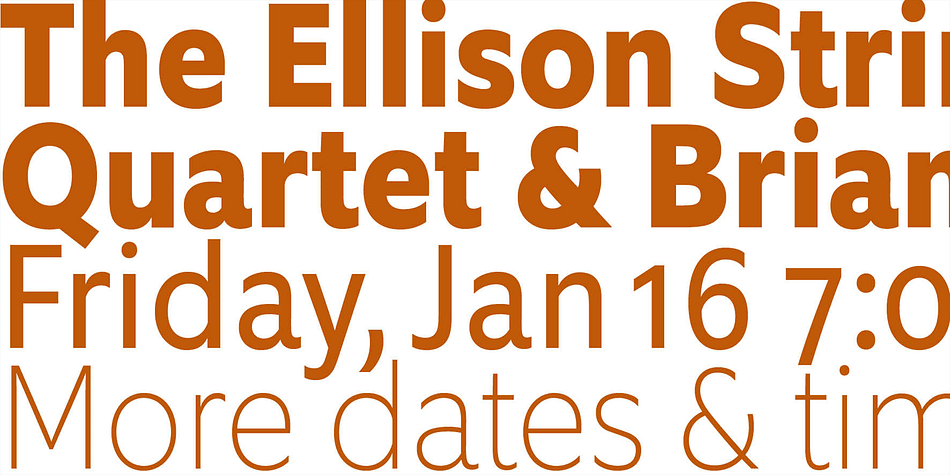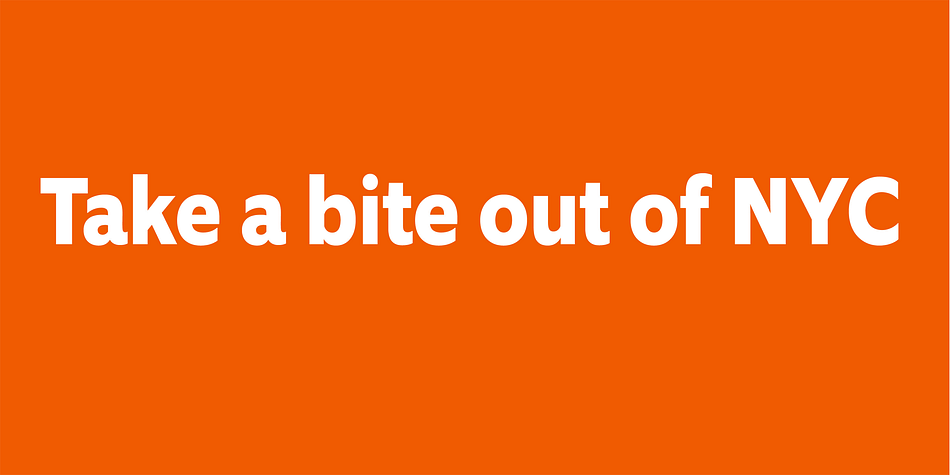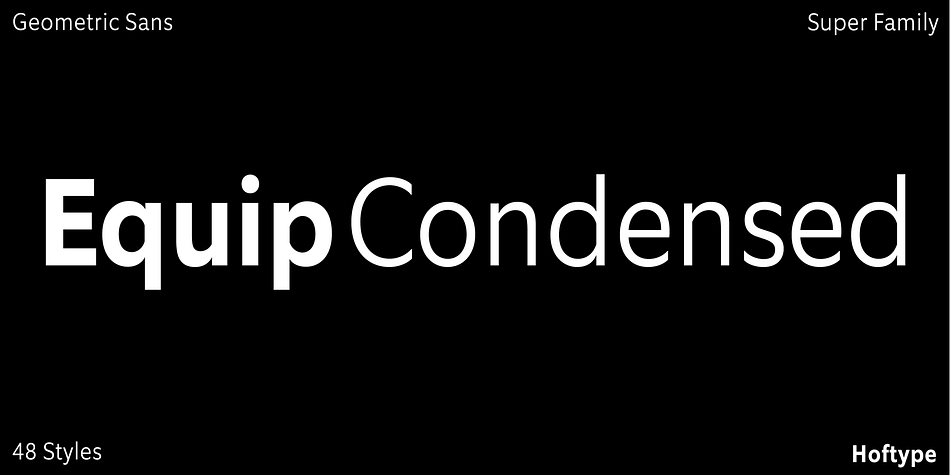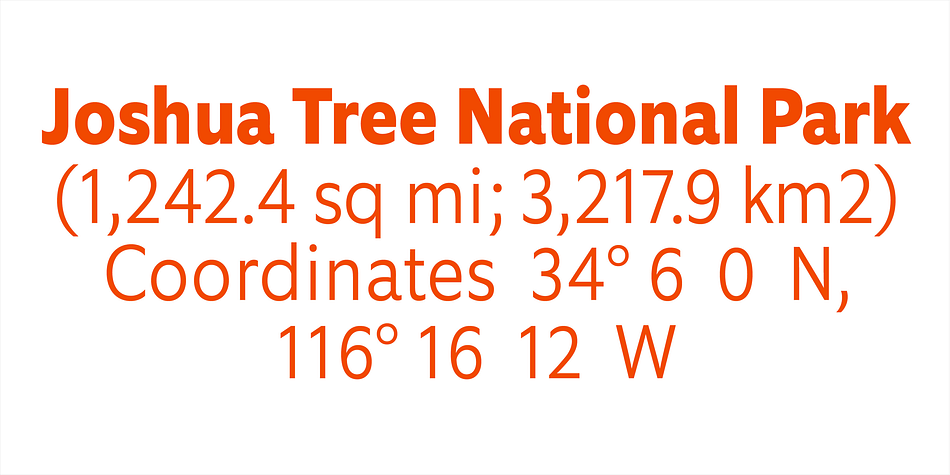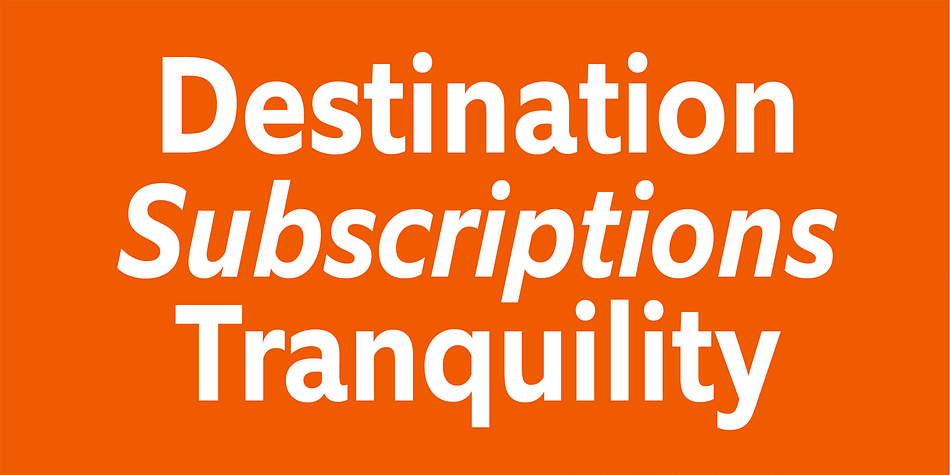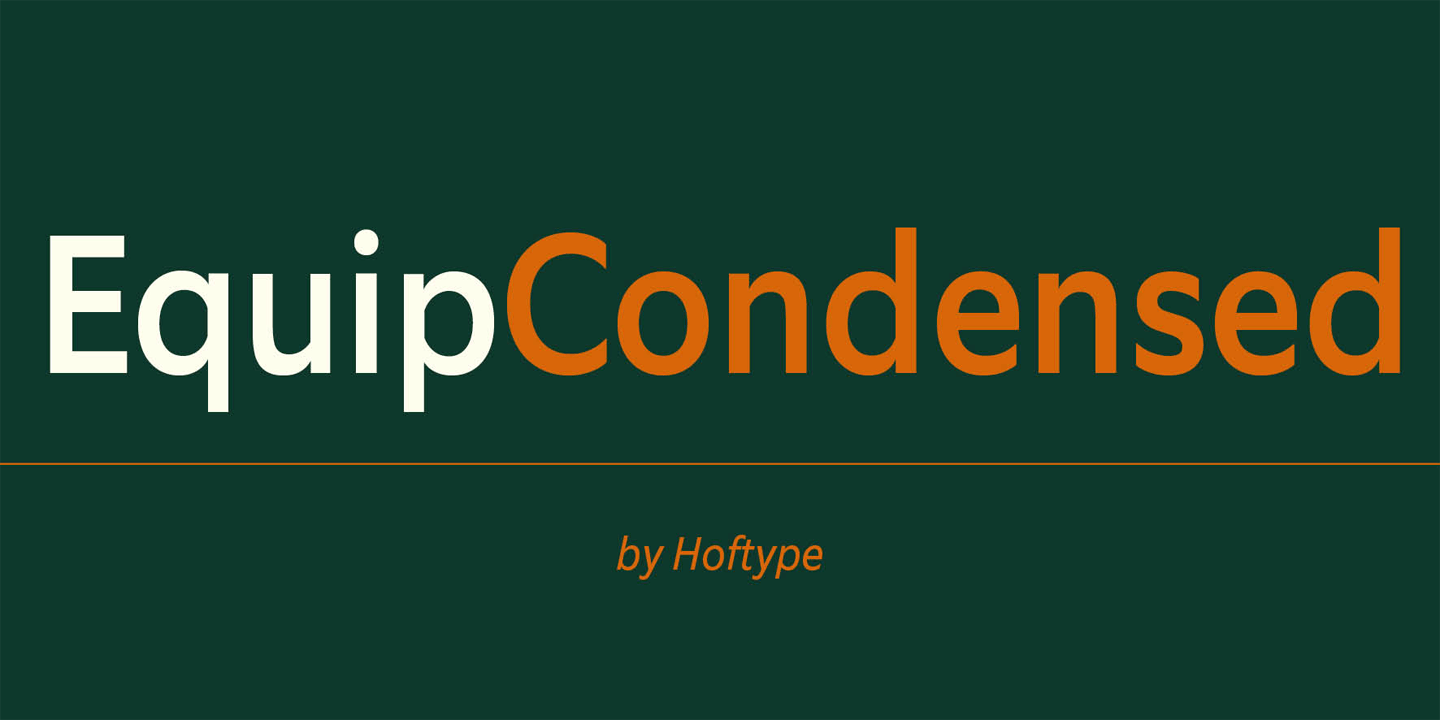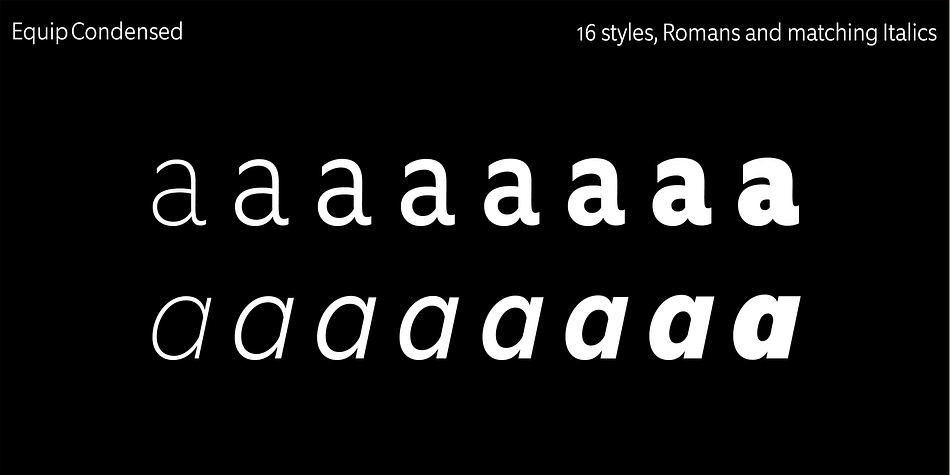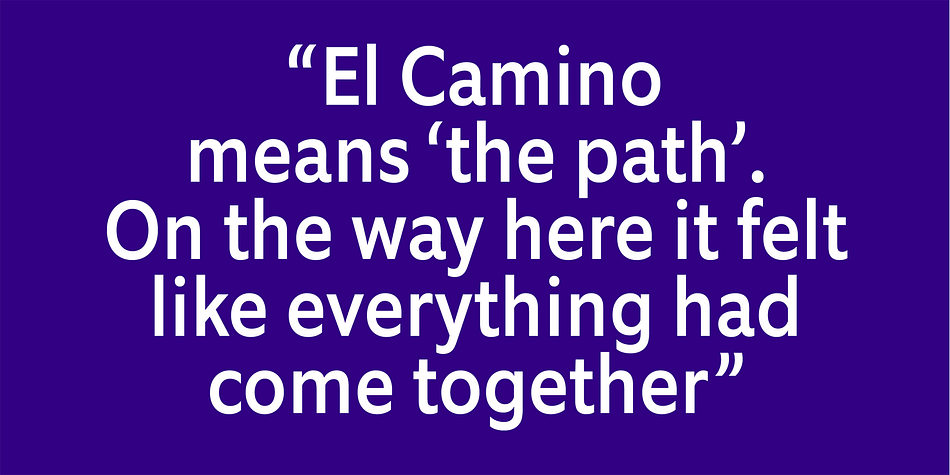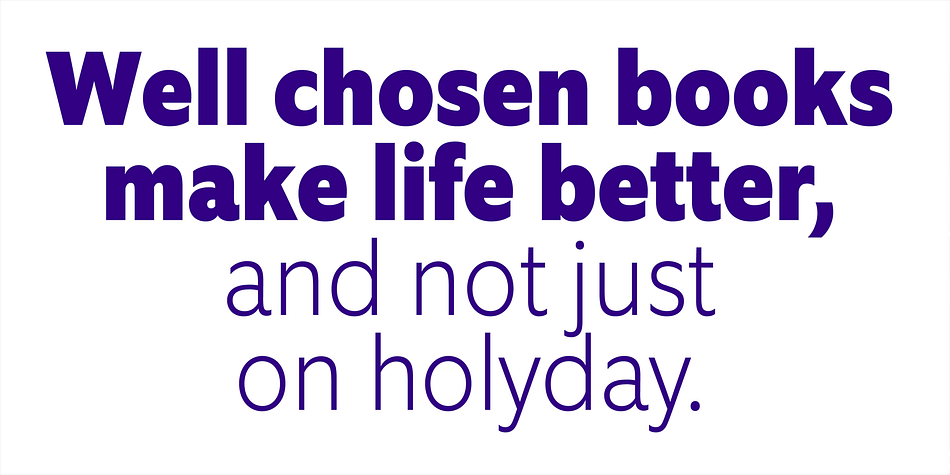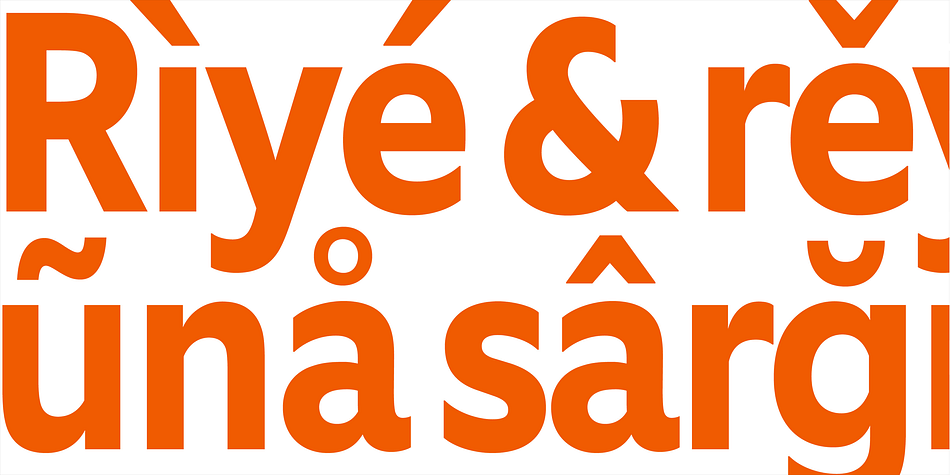
EquipCondensed is a sans serif font family. This typeface has sixteen styles and was published by Hoftype.
EquipCondensed is the matching complement for Equip and with its 16 fonts it extends of the Equip family to 32 styles. It not only works superbly as a contrasting face for the ‘normal’ Equip but due to its moderate width, it also performs brilliantly as a space saving typeface.
EquipCondensed is very well suited for ambitious typography.
The EquipCondensed family comes in OpenType format with extended language support. All weights contain semi-ligatures (design optimized single characters), proportional lining figures, tabular lining figures, proportional old style figures, lining old style figures, matching currency symbols, fraction- and scientific numerals and arrows.